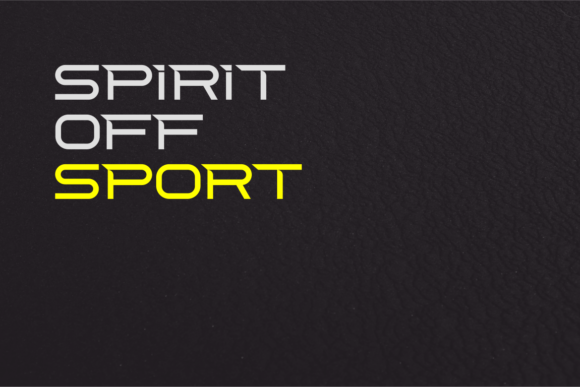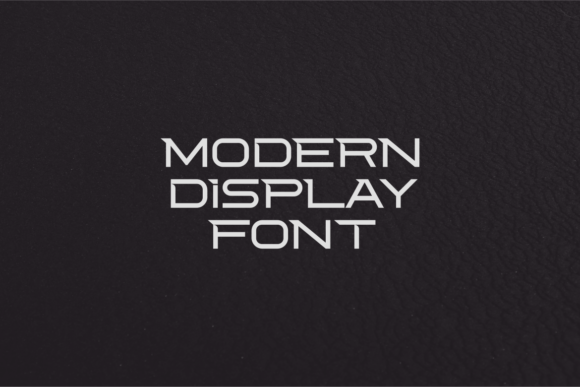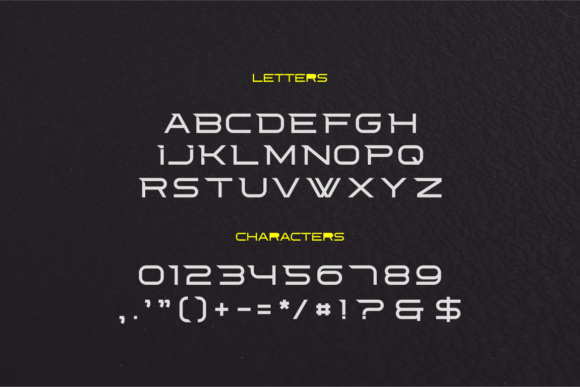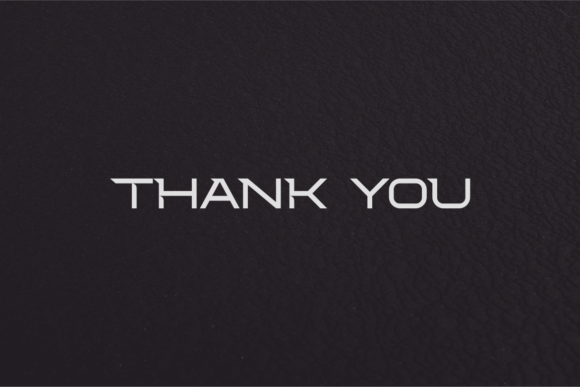
The Ultimate Display Font: Boxbuxs – Elevate Your Designs with a Modern Twist
Have you ever been in the middle of a design project, and suddenly, it feels like something’s missing? You’re not alone. I recall working on a branding project for a trendy new cafe, and no matter how hard I tried, the text just wouldn’t pop. That’s when I stumbled upon Boxbuxs, an incredibly cool display font that instantly elevated my design to the next level. With its modern yet whimsical style, Boxbuxs has the potential to bring each of your creative ideas to new heights!
An Honest Review of Boxbuxs
What I Love About Boxbuxs ✨
- Unique and quirky design that’s perfect for creative projects ✅
- Excellent for headlines, titles, and short text passages 📣
- Works well with both digital and print designs 📊
- Easy to read, even in smaller sizes 🔍
- May not be the best fit for body text or long paragraphs ⚠️
- Some characters might look a bit cramped at very small sizes 🔎
The Backstory Behind Boxbuxs
Although the origins of Boxbuxs are shrouded in mystery, it’s clear that the designer was inspired by the world of modern art and graphic design. The font’s unique blend of geometric shapes and whimsical flair makes it a standout in the world of display fonts.
| What type of projects is Boxbuxs best suited for? | Boxbuxs is perfect for creative projects, such as branding, posters, flyers, and social media graphics. |
| Is Boxbuxs a versatile font? | While Boxbuxs excels as a display font, it may not be the best fit for body text or long paragraphs. |